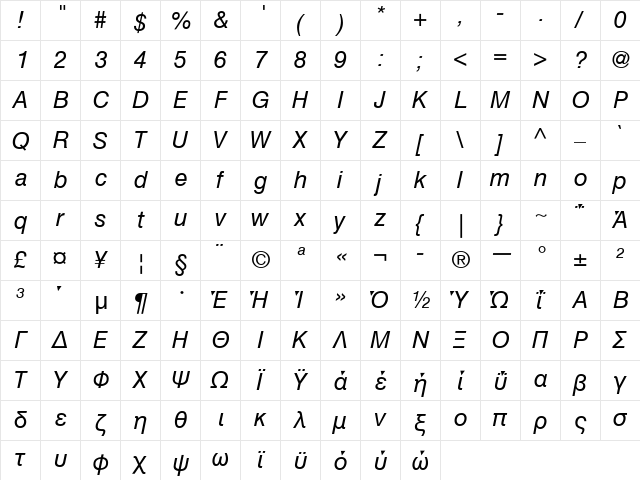
HelveticaGreek Upright Italic
Design Context for HelveticaGreek Upright Typeface
HelveticaGreek Upright offers clean, dependable letterforms without strong stylistic allegiance, making it a practical choice for designers who need flexibility. The dynamic lean of this cut emphasises speed and emphasis in any layout.
Pro Tip: Use HelveticaGreek Upright for emphasis, pull quotes, and subheadings where its slanted energy can add rhythm to the layout.